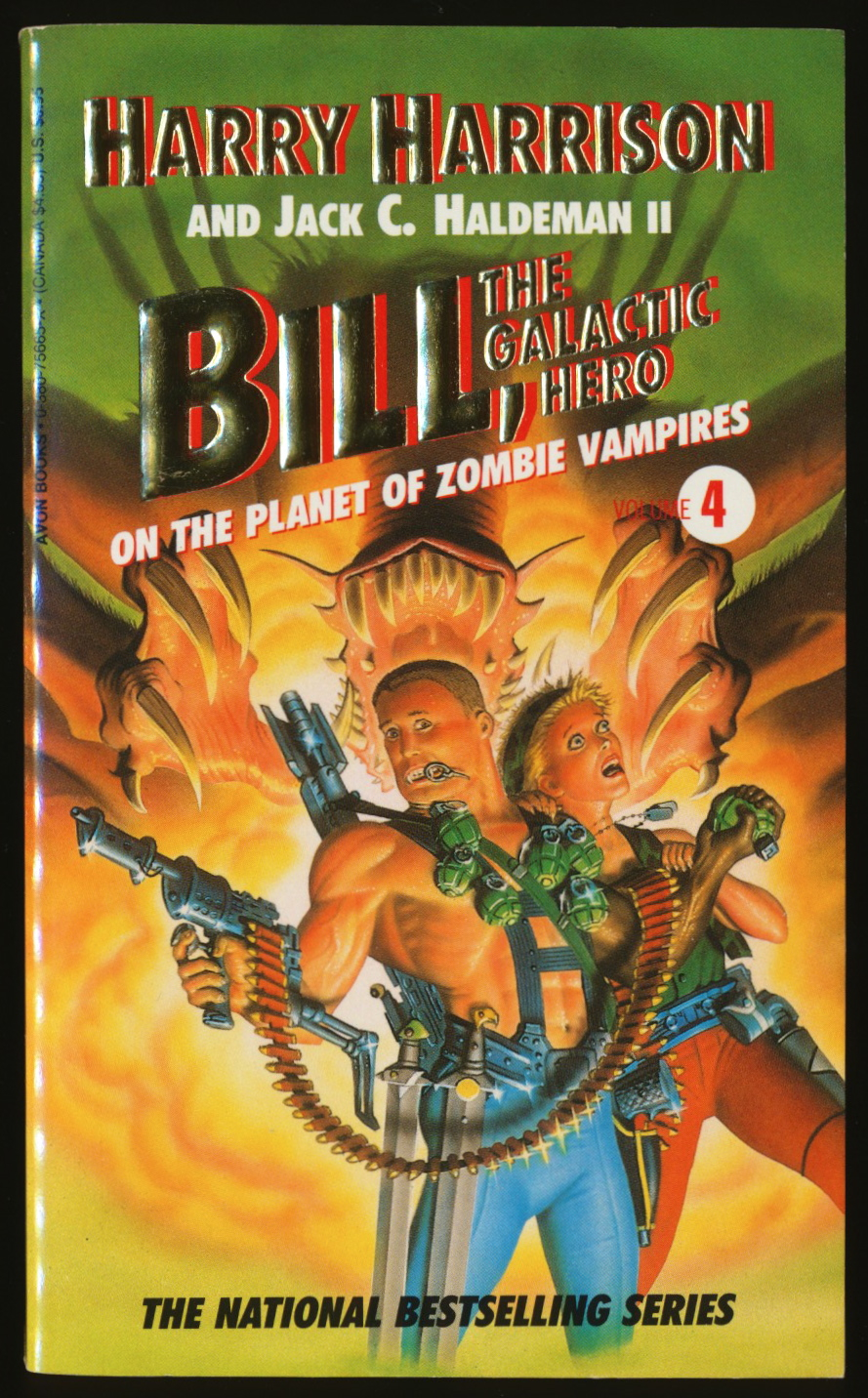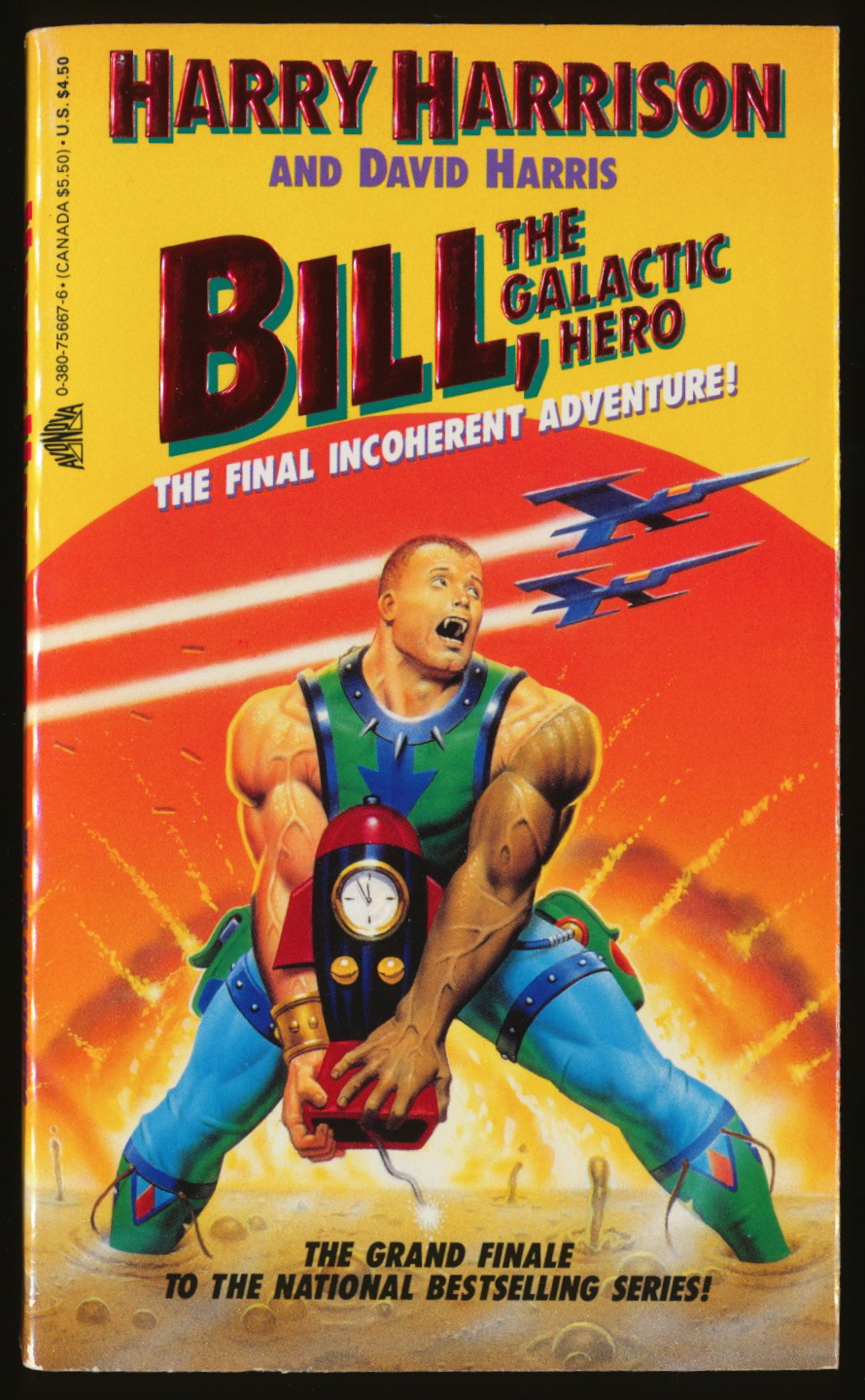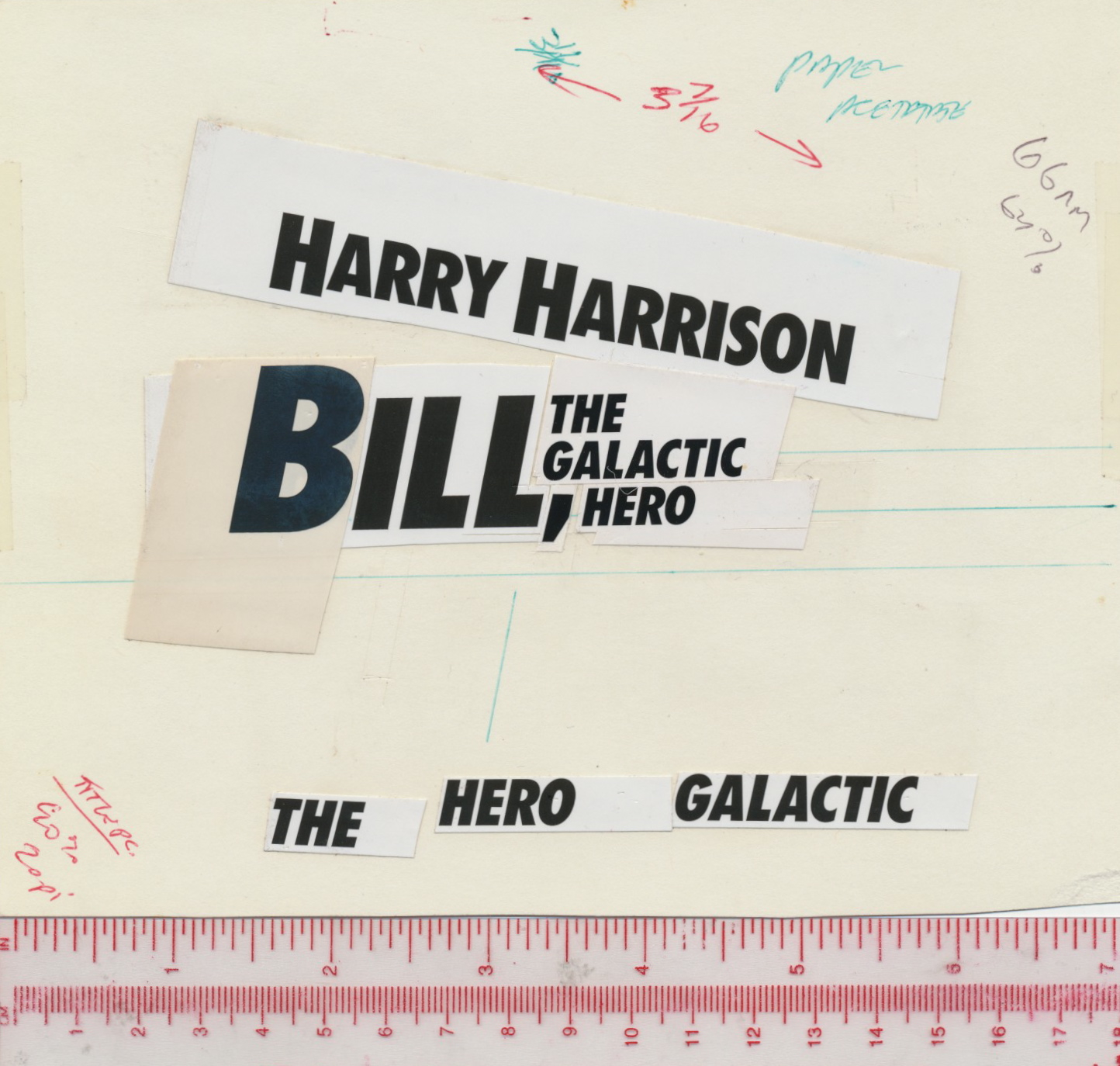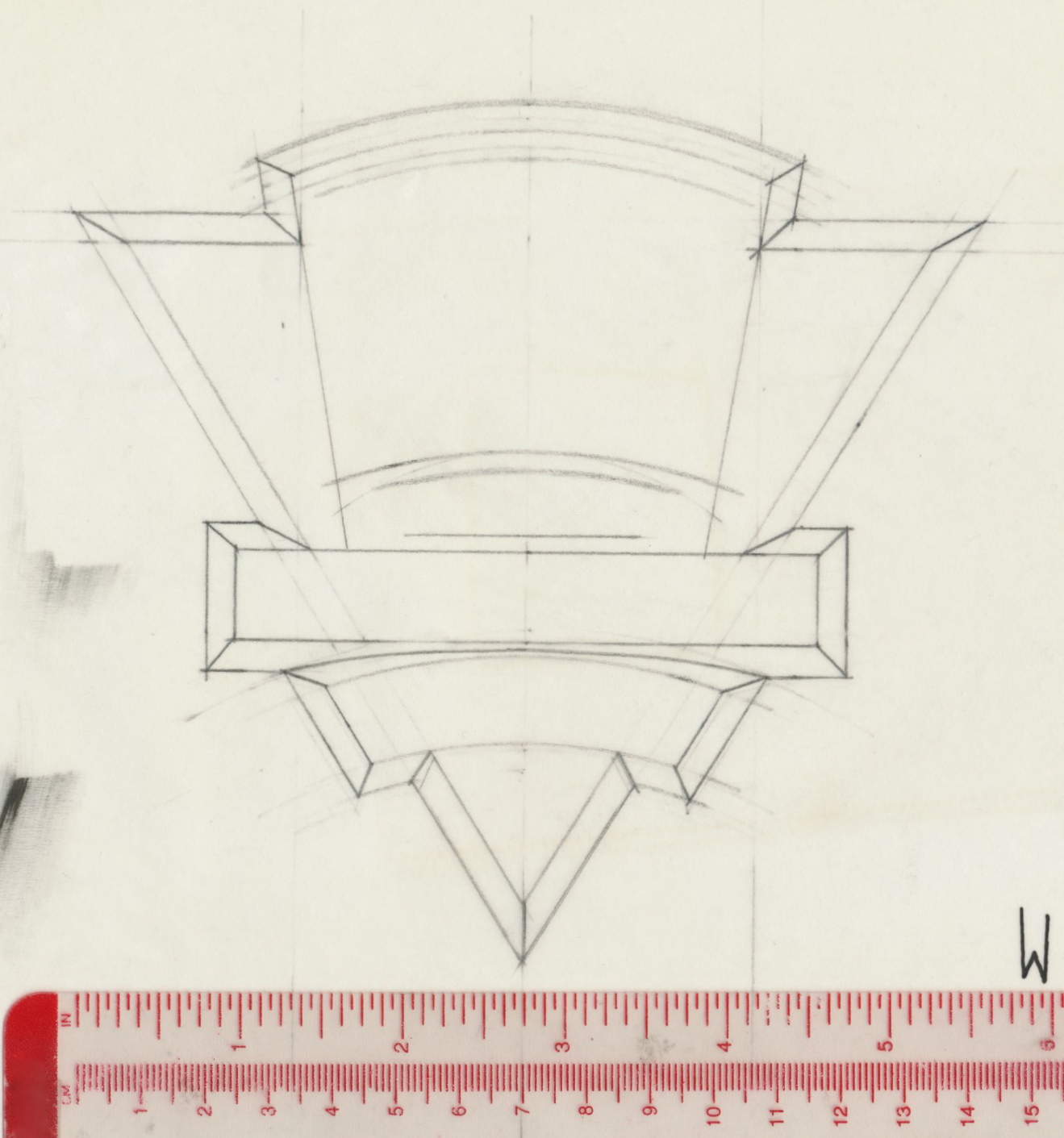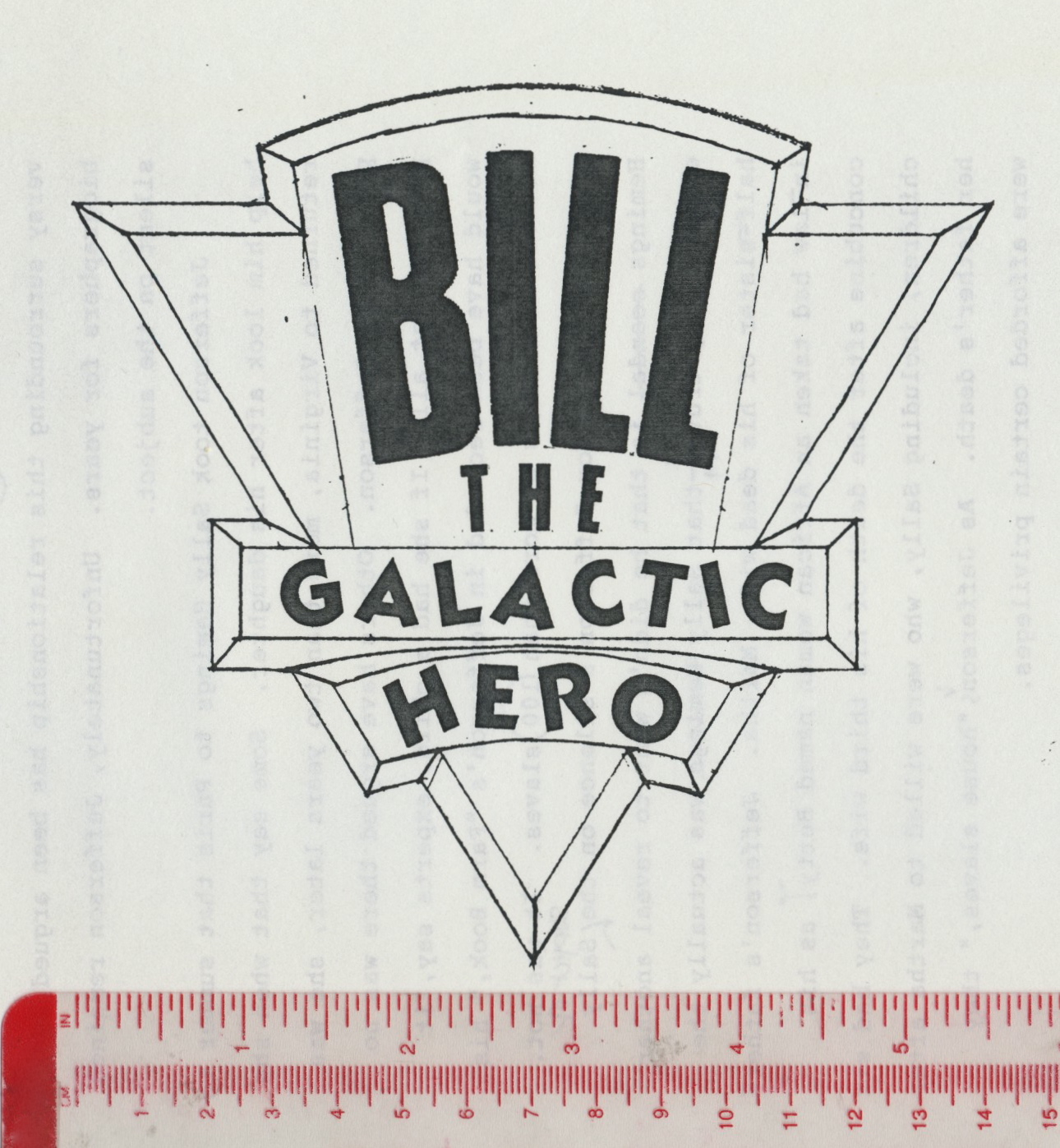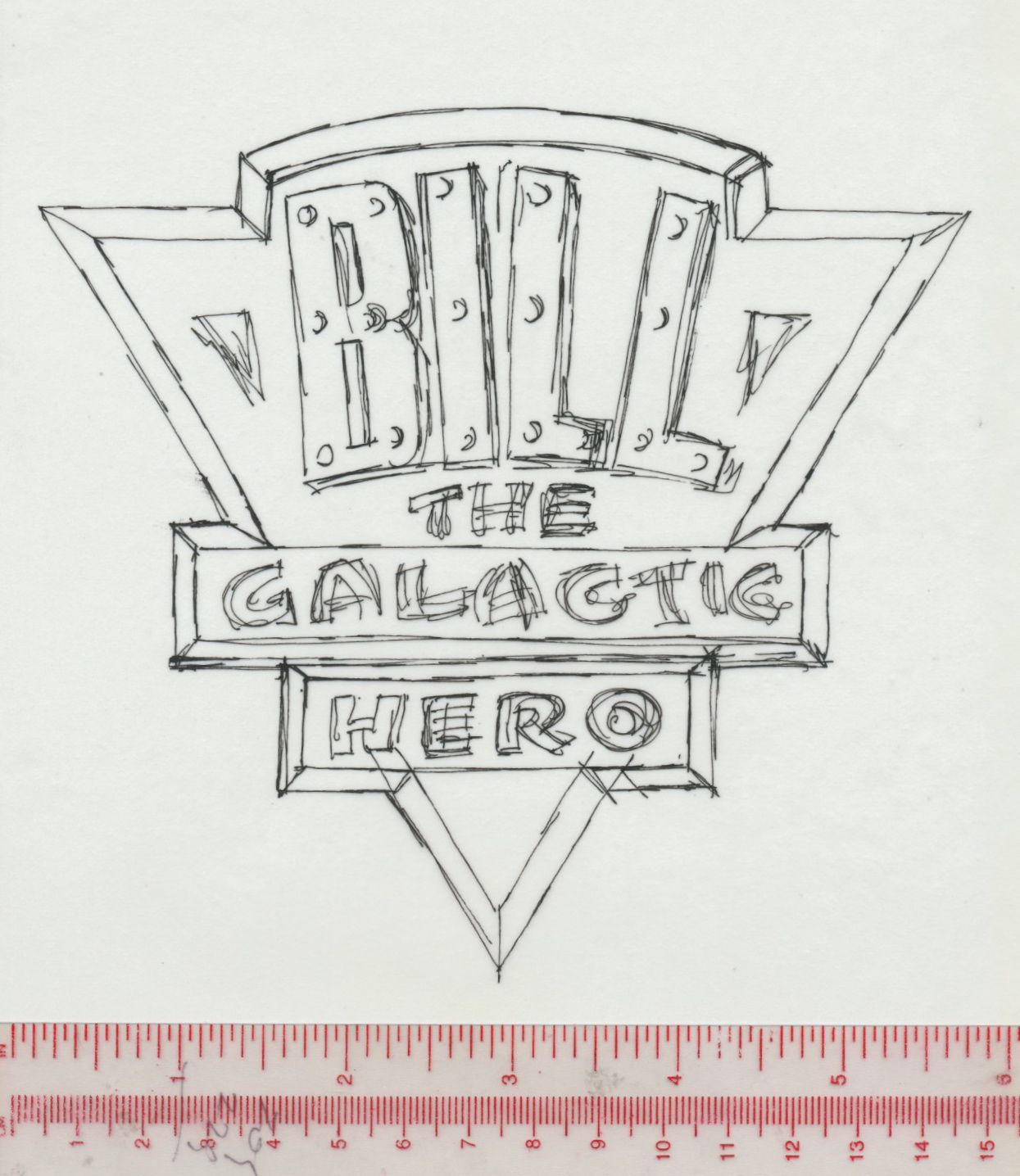
Beginning in 1989, a six-volume series based on Harry Harrison’s Bill, The Galactic Hero was produced by Byron Preiss for Avon Books. Harrison wrote the first volume then collaborated with four others on the remaining books. The wrap-around cover art was by Michael W. Kaluta, Steve Fastner and Mark Pacella; Kaluta and Pacella also did the interior sketches. Below are the initial designs, sort of a patch, for the series title.
Byron met with the book’s editor and art director, and their feedback was noted on cover comp: “darker blue on logo / Harry too small / Bill sinking / too busy?”. At some point the decision was made to drop the patch design and replace it with an all-type treatment: Harrison’s name large at the top, and Bill’s name even larger. Below are the Futura family type segments used on the mechanicals to produce the printed mass-market paperback covers.